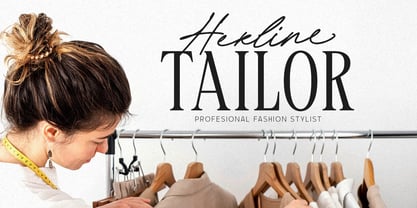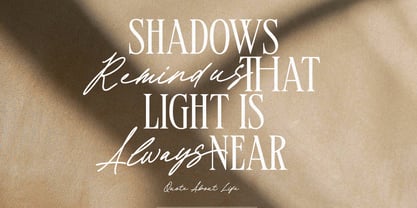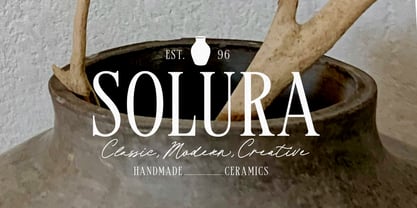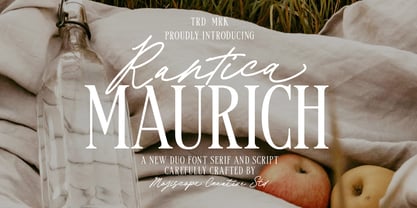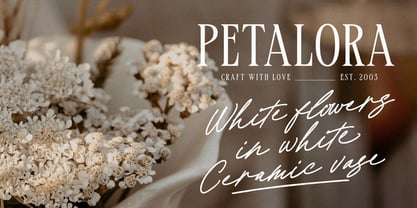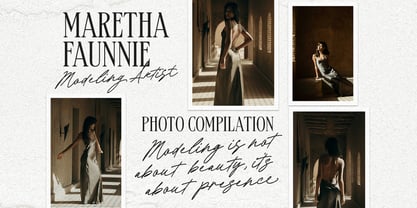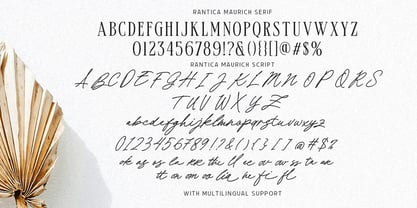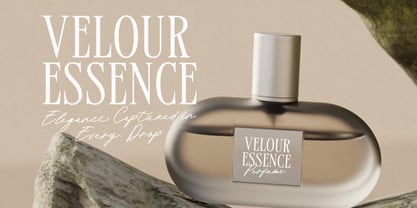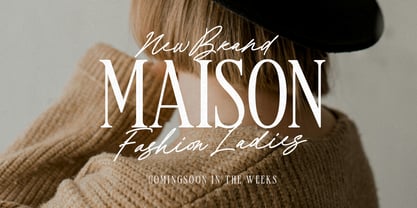
Rantica Maurich
Rantica Maurich, a stunning font duo that perfectly pairs a clean, modern serif with an elegant, free-flowing script. The serif provides a sophisticated foundation, while the script adds a warm, personal touch with its authentic handwritten strokes. Together, they create a versatile and timeless combination ideal for branding, wedding invitations, logos, and editorial design. Elevate your projects with the unique charm of Rantica Maurich. - Two Fonts in One : A clean & modern Serif + an elegant & warm Script. - Perfect For : High-end branding, wedding invitations, logos, packaging, and editorial layouts. - Features : Serif with Ligatures Set, OpenType Features, and Multilingual Support. The script includes beautiful ligatures and stylistic alternates for a truly custom feel. - The Result : A timeless and professional look that elevates any design.